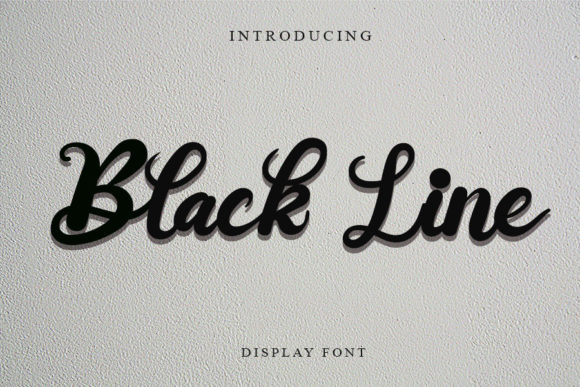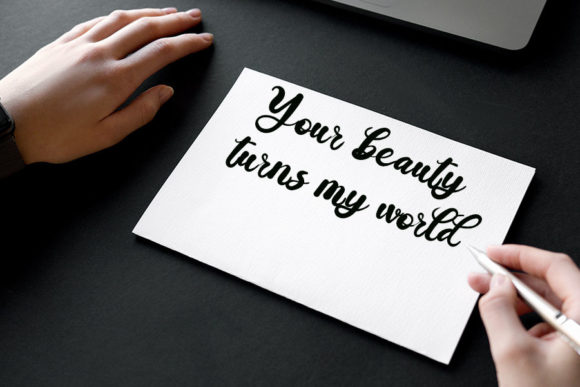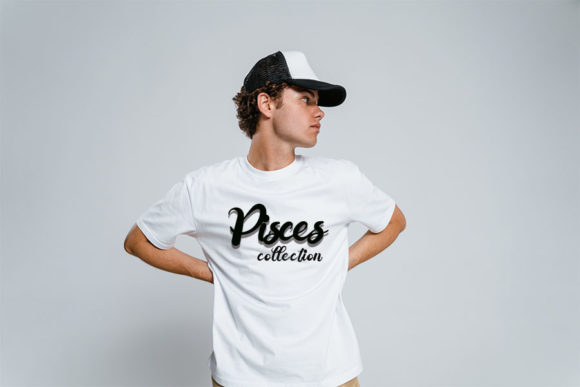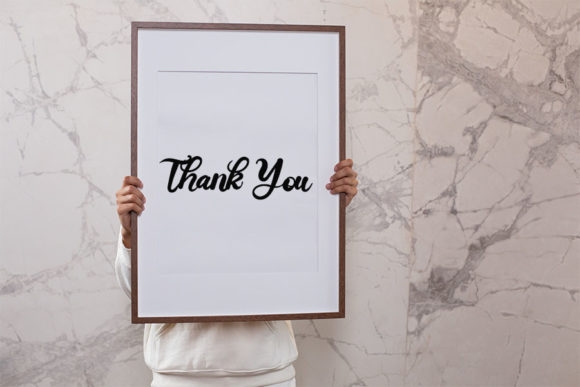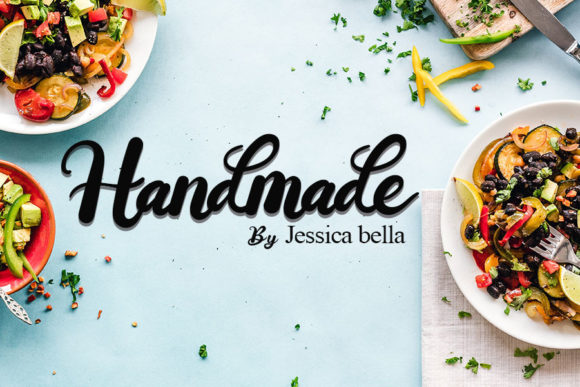
Black Line Font
About Black Line Font
Black LineĀ is a lovely and delicate script font that exudes elegance and class. Featuring characters that dance along the baseline, this font will add a luxury spark to any design project that you wish to create!